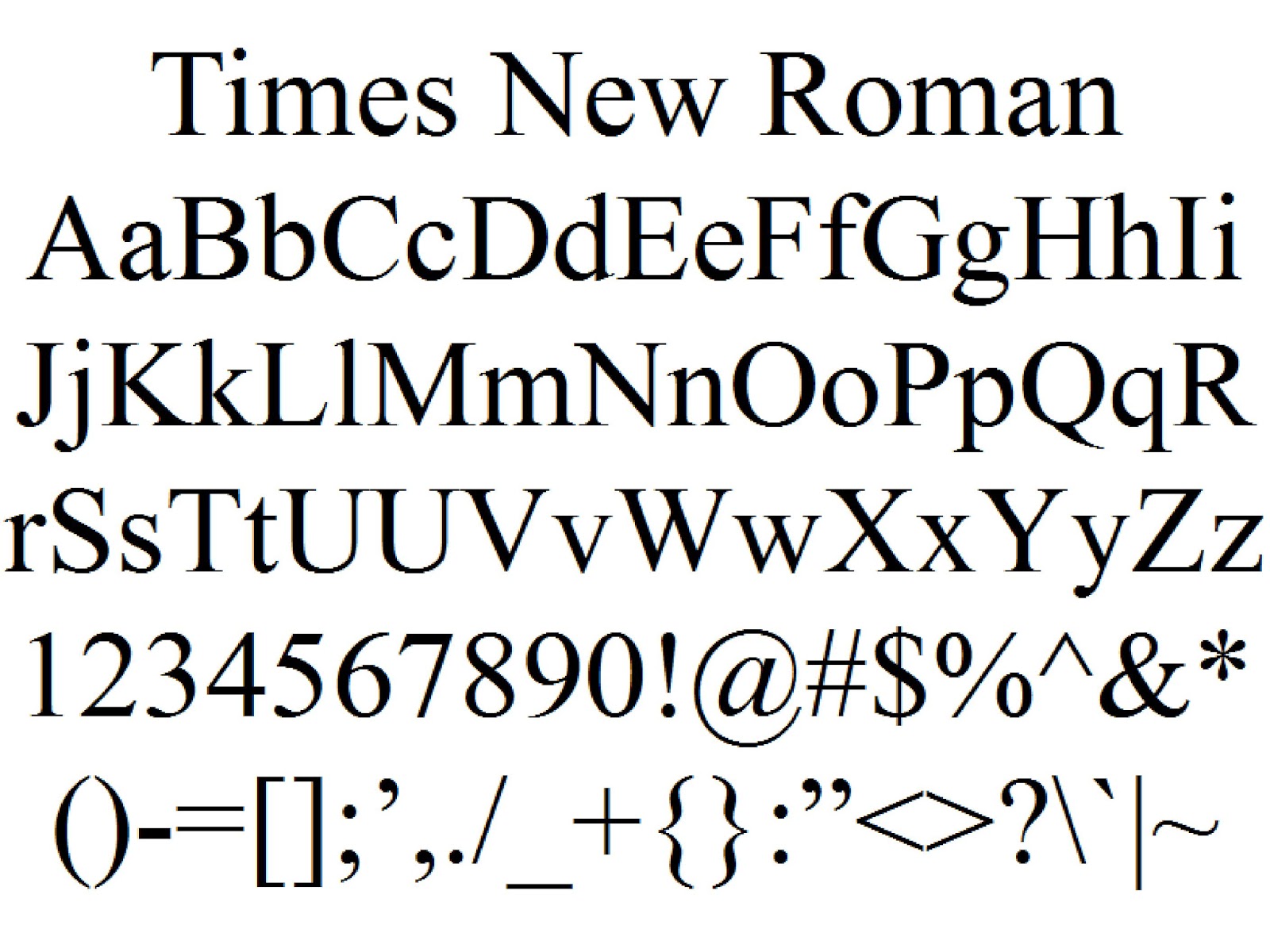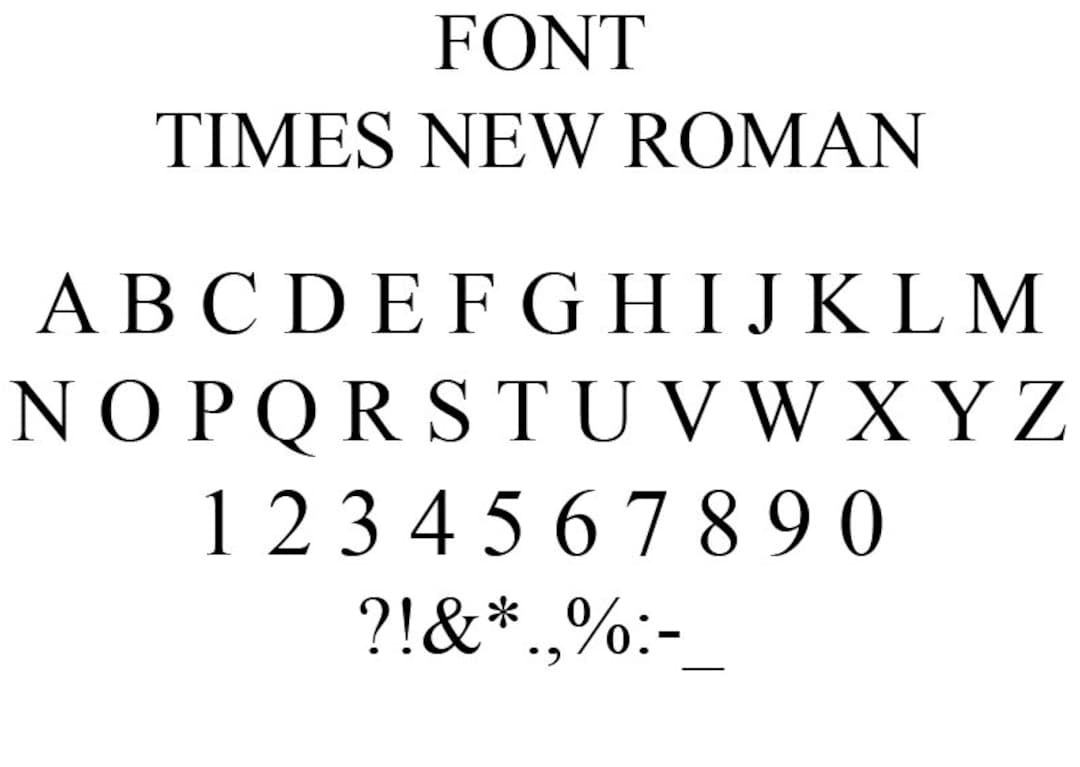
Thin Times New Roman Font
Thin Times New Roman Font - Web times new roman has more font weights than the preinstalled regular and bold on windows. Free alternatives & similar fonts. This remarkable typeface first appeared in 1932 in the times of london newspaper, for which it was designed. You can also scan the original text and use a tool like whatthefont to. Have a look at myfonts.com. It has subsequently become one of the worlds most successful type. Web times new roman: As an older and more classic serif font, eb. The elegant eb garamond is a fantastic alternative for times new roman.
The elegant eb garamond is a fantastic alternative for times new roman. Web times new roman has more font weights than the preinstalled regular and bold on windows. As an older and more classic serif font, eb. You can also scan the original text and use a tool like whatthefont to. Web times new roman: Free alternatives & similar fonts. This remarkable typeface first appeared in 1932 in the times of london newspaper, for which it was designed. Have a look at myfonts.com. It has subsequently become one of the worlds most successful type.
As an older and more classic serif font, eb. You can also scan the original text and use a tool like whatthefont to. Web times new roman: Have a look at myfonts.com. This remarkable typeface first appeared in 1932 in the times of london newspaper, for which it was designed. It has subsequently become one of the worlds most successful type. Web times new roman has more font weights than the preinstalled regular and bold on windows. The elegant eb garamond is a fantastic alternative for times new roman. Free alternatives & similar fonts.
This remarkable typeface first appeared in 1932 in the times of london newspaper, for which it was designed. It has subsequently become one of the worlds most successful type. As an older and more classic serif font, eb. Web times new roman has more font weights than the preinstalled regular and bold on windows. Free alternatives & similar fonts.
As an older and more classic serif font, eb. Web times new roman has more font weights than the preinstalled regular and bold on windows. This remarkable typeface first appeared in 1932 in the times of london newspaper, for which it was designed. Have a look at myfonts.com. The elegant eb garamond is a fantastic alternative for times new roman.
It has subsequently become one of the worlds most successful type. Have a look at myfonts.com. Web times new roman: The elegant eb garamond is a fantastic alternative for times new roman. This remarkable typeface first appeared in 1932 in the times of london newspaper, for which it was designed.
You can also scan the original text and use a tool like whatthefont to. As an older and more classic serif font, eb. Free alternatives & similar fonts. Web times new roman has more font weights than the preinstalled regular and bold on windows. This remarkable typeface first appeared in 1932 in the times of london newspaper, for which it.
Have a look at myfonts.com. As an older and more classic serif font, eb. Web times new roman: Web times new roman has more font weights than the preinstalled regular and bold on windows. The elegant eb garamond is a fantastic alternative for times new roman.
It has subsequently become one of the worlds most successful type. Free alternatives & similar fonts. Web times new roman has more font weights than the preinstalled regular and bold on windows. Web times new roman: This remarkable typeface first appeared in 1932 in the times of london newspaper, for which it was designed.
It has subsequently become one of the worlds most successful type. This remarkable typeface first appeared in 1932 in the times of london newspaper, for which it was designed. Free alternatives & similar fonts. Web times new roman has more font weights than the preinstalled regular and bold on windows. You can also scan the original text and use a.
Web times new roman has more font weights than the preinstalled regular and bold on windows. As an older and more classic serif font, eb. Have a look at myfonts.com. This remarkable typeface first appeared in 1932 in the times of london newspaper, for which it was designed. Web times new roman:
Web times new roman: The elegant eb garamond is a fantastic alternative for times new roman. You can also scan the original text and use a tool like whatthefont to. This remarkable typeface first appeared in 1932 in the times of london newspaper, for which it was designed. Web times new roman has more font weights than the preinstalled regular.
Web Times New Roman:
You can also scan the original text and use a tool like whatthefont to. The elegant eb garamond is a fantastic alternative for times new roman. It has subsequently become one of the worlds most successful type. Free alternatives & similar fonts.
Web Times New Roman Has More Font Weights Than The Preinstalled Regular And Bold On Windows.
Have a look at myfonts.com. This remarkable typeface first appeared in 1932 in the times of london newspaper, for which it was designed. As an older and more classic serif font, eb.